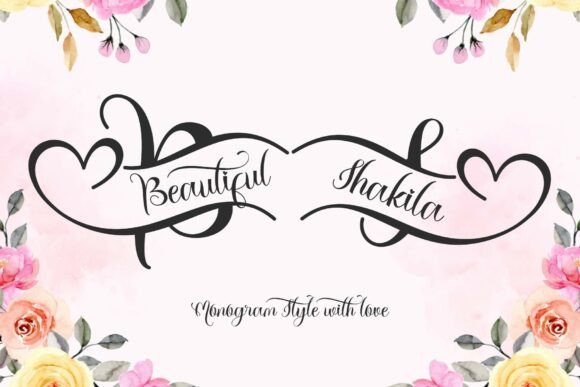
Introducing Beautiful Shakila Monogram Font: Elevate Your Designs with Elegance and Sophistication
Are you looking for a font that exudes romance, sophistication, and timeless beauty? Look no further than the Beautiful Shakila Monogram Font. This elegant decorative script font is crafted in a refined monogram style, perfect for designs that require a touch of luxury and refinement. In this article, we’ll explore the features and benefits of Beautiful Shakila, and how it can elevate your designs to new heights.
What is Beautiful Shakila Monogram Font?
Beautiful Shakila is an elegant decorative script font that is designed to add a touch of sophistication and romance to your designs. Its refined monogram style makes it perfect for wedding stationery, luxury branding, personal logos, and upscale invitations. The font features graceful swashes, delicate strokes, and flowing lines that create a harmonious balance of style and readability.
Key Features of Beautiful Shakila Monogram Font
- Complete set of uppercase and lowercase letters: The font includes a comprehensive set of letters, ensuring that you have everything you need to create stunning designs.
- Numerals, punctuation, and special characters: The font also includes a range of numerals, punctuation marks, and special characters, giving you endless possibilities for creative expression.
- Stunning heart-shaped monogram frames: The font features beautiful heart-shaped monogram frames that allow for effortless customization and endless possibilities for creating personalized designs.
- Multilingual support: With multilingual support, Beautiful Shakila is perfect for international projects, ensuring that your designs can reach a global audience.
- Smooth curves and detailed ligatures: The font’s smooth curves and detailed ligatures make every letter look hand-drawn and unique, adding a touch of elegance to your designs.
Uses for Beautiful Shakila Monogram Font
Beautiful Shakila is a versatile font that can be used for a wide range of design projects, including:
- Wedding invitations: The font’s elegant and romantic style makes it perfect for wedding invitations, save-the-date cards, and other wedding stationery.
- Luxury branding: The font’s sophisticated and refined style makes it ideal for luxury branding, high-end packaging, and upscale marketing materials.
- Personal logos: The font’s unique and elegant style makes it perfect for creating personal logos, monograms, and other custom designs.
- Elegant social media posts: The font’s refined style makes it perfect for creating elegant and sophisticated social media posts that stand out from the crowd.
- Signature-style branding: The font’s unique and elegant style makes it perfect for creating signature-style branding that reflects your personality and style.
Benefits of Using Beautiful Shakila Monogram Font
There are many benefits to using Beautiful Shakila Monogram Font, including:
- Unique and elegant designs: The font’s refined monogram style and elegant swashes make it perfect for creating unique and elegant designs that stand out from the crowd.
- Endless customization possibilities: The font’s heart-shaped monogram frames and comprehensive set of letters and characters give you endless possibilities for creative expression and customization.
- Multilingual support: The font’s multilingual support ensures that your designs can reach a global audience, making it perfect for international projects.
- Easy to use: The font is easy to use and can be installed on your computer or used online, making it accessible to designers of all levels.
Tips for Using Beautiful Shakila Monogram Font
Here are some tips for using Beautiful Shakila Monogram Font:
- Experiment with different monogram combinations: The font’s heart-shaped monogram frames and comprehensive set of letters and characters give you endless possibilities for creative expression and customization.
- Use it for wedding stationery: The font’s elegant and romantic style makes it perfect for wedding invitations, save-the-date cards, and other wedding stationery.
- Pair it with other fonts: Beautiful Shakila can be paired with other fonts to create a unique and elegant design.
- Use it for digital graphics or printed works: The font is perfect for both digital graphics and printed works, making it a versatile addition to your design toolkit.
In conclusion, Beautiful Shakila Monogram Font is a stunning and elegant decorative script font that is perfect for designs that celebrate romance, sophistication, and timeless beauty. Its refined monogram style, comprehensive set of letters and characters, and multilingual support make it a versatile and valuable addition to any designer’s toolkit. Whether you’re creating wedding stationery, luxury branding, personal logos, or elegant social media posts, Beautiful Shakila is the perfect choice.